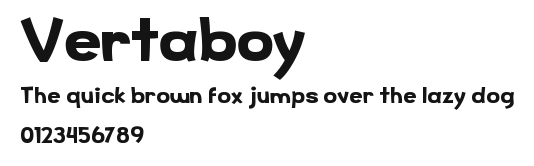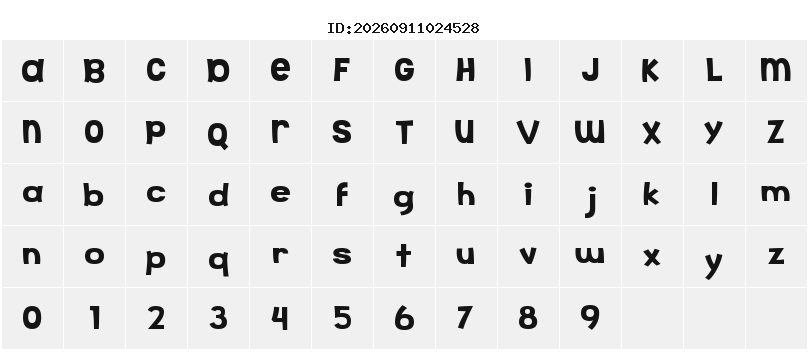
• Font Name: Vertaboy
• Full Font Name: Vertaboy
• Designer: Dan P. Lyons
About Vertaboy.ttf
Vertaboy.ttf is a modern, elegant sans-serif font designed for ultimate readability and visual harmony. Perfect for branding, headlines, web design, and print materials.